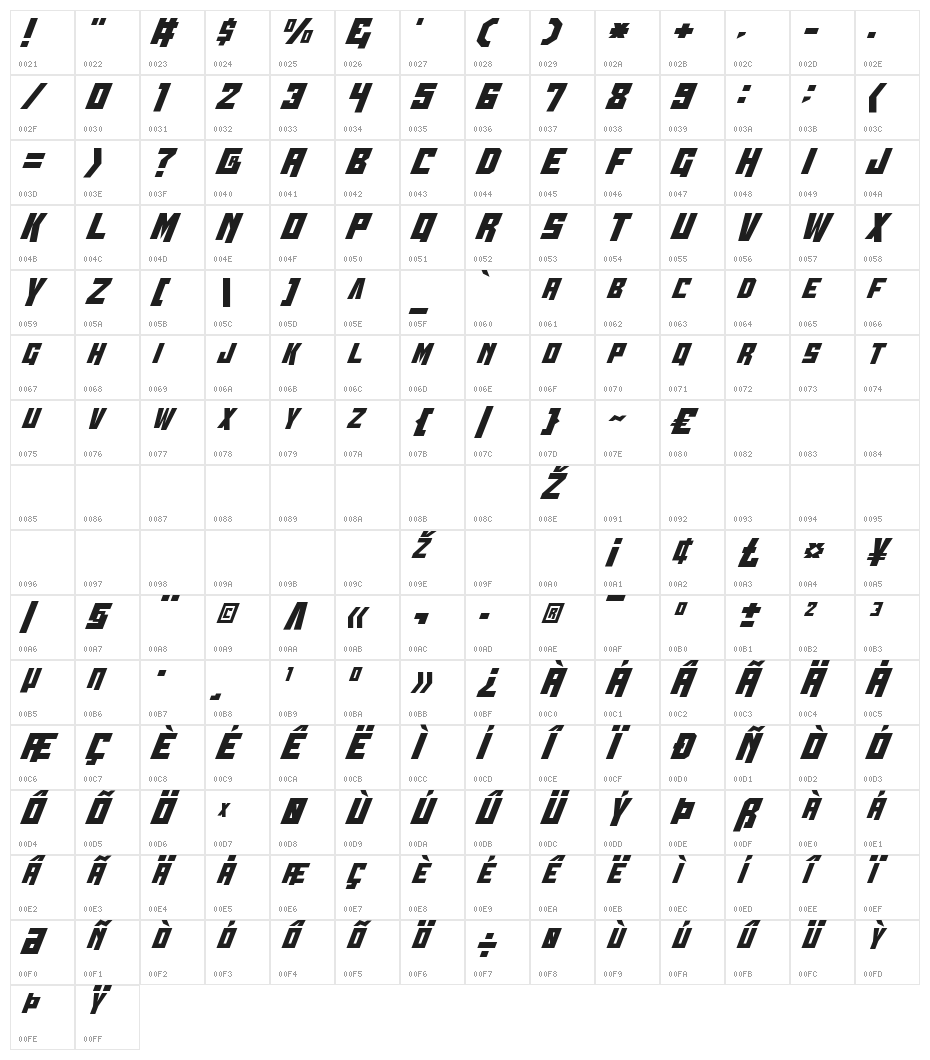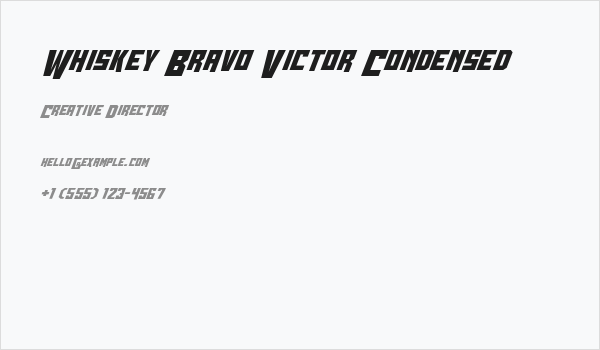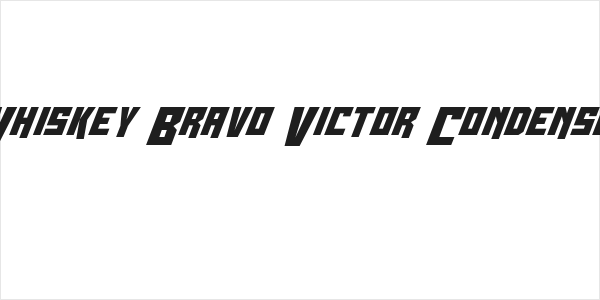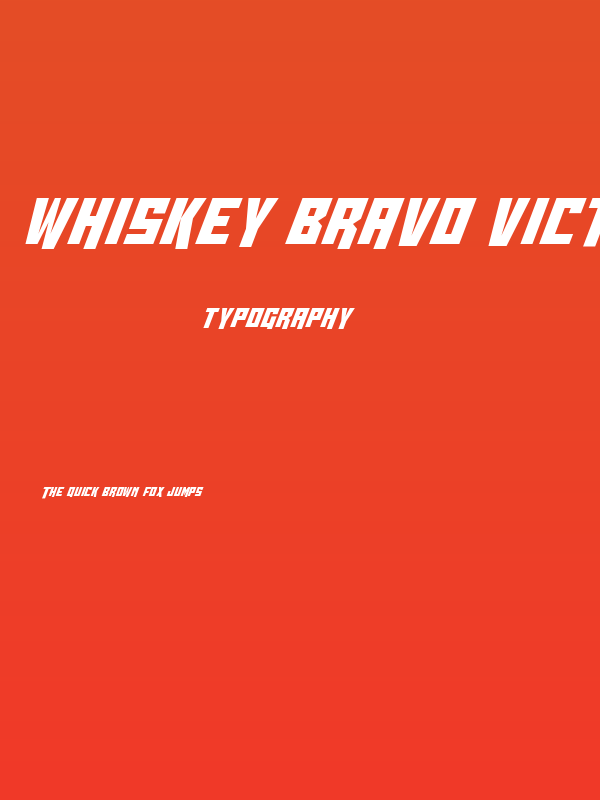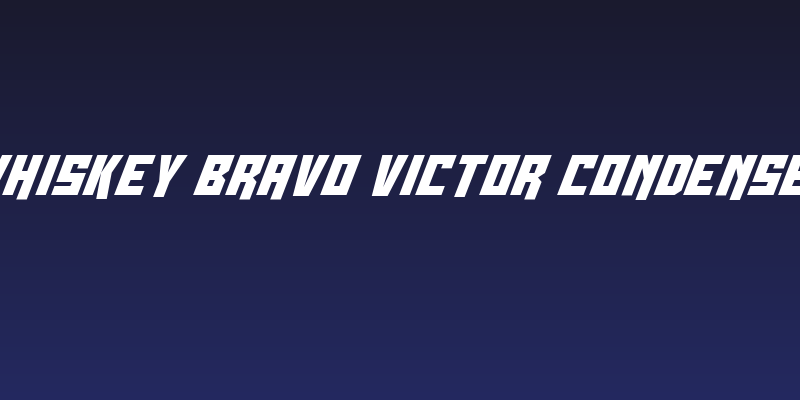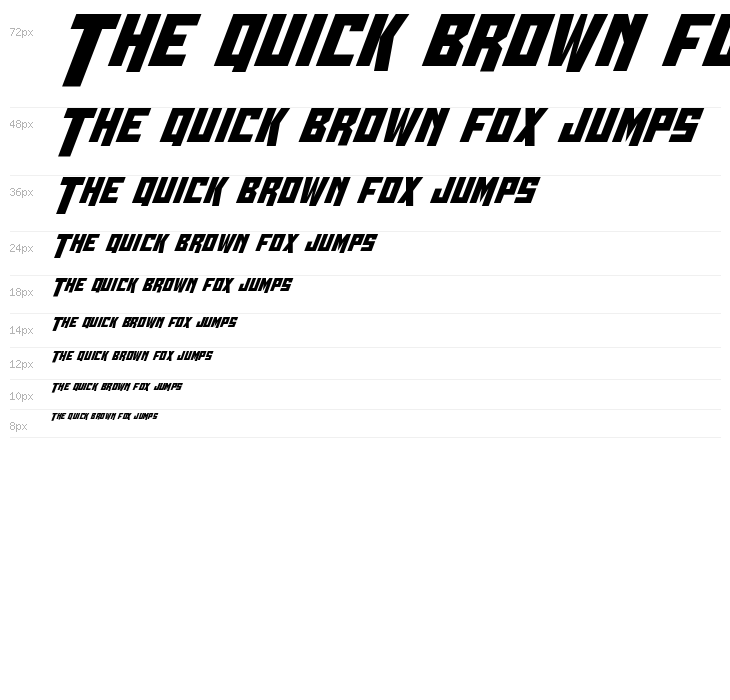
Whiskey Bravo Victor Condensed Font
Whiskey Bravo Victor Condensed Description
This font features a bold and dynamic design with a strong geometric influence. The characters are sharply angled, giving a sense of movement and energy. The condensed style allows for efficient use of space, making it ideal for impactful headlines or titles. Each letter is distinct with a consistent slant, contributing to a cohesive and modern appearance. The numbers and special characters maintain the same boldness and angularity, ensuring uniformity across all text elements. This font's unique style makes it stand out, suitable for projects that require a strong visual presence.